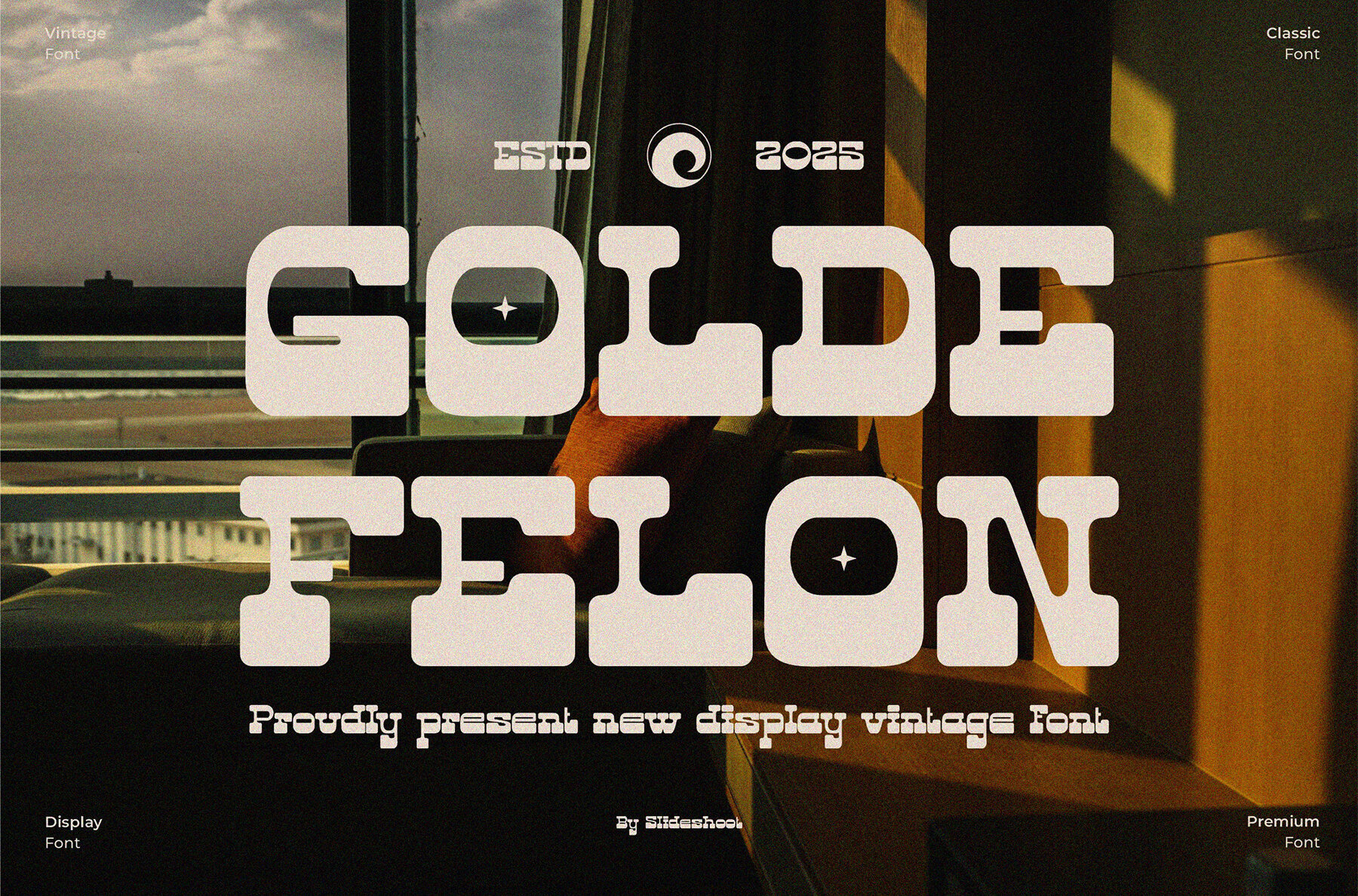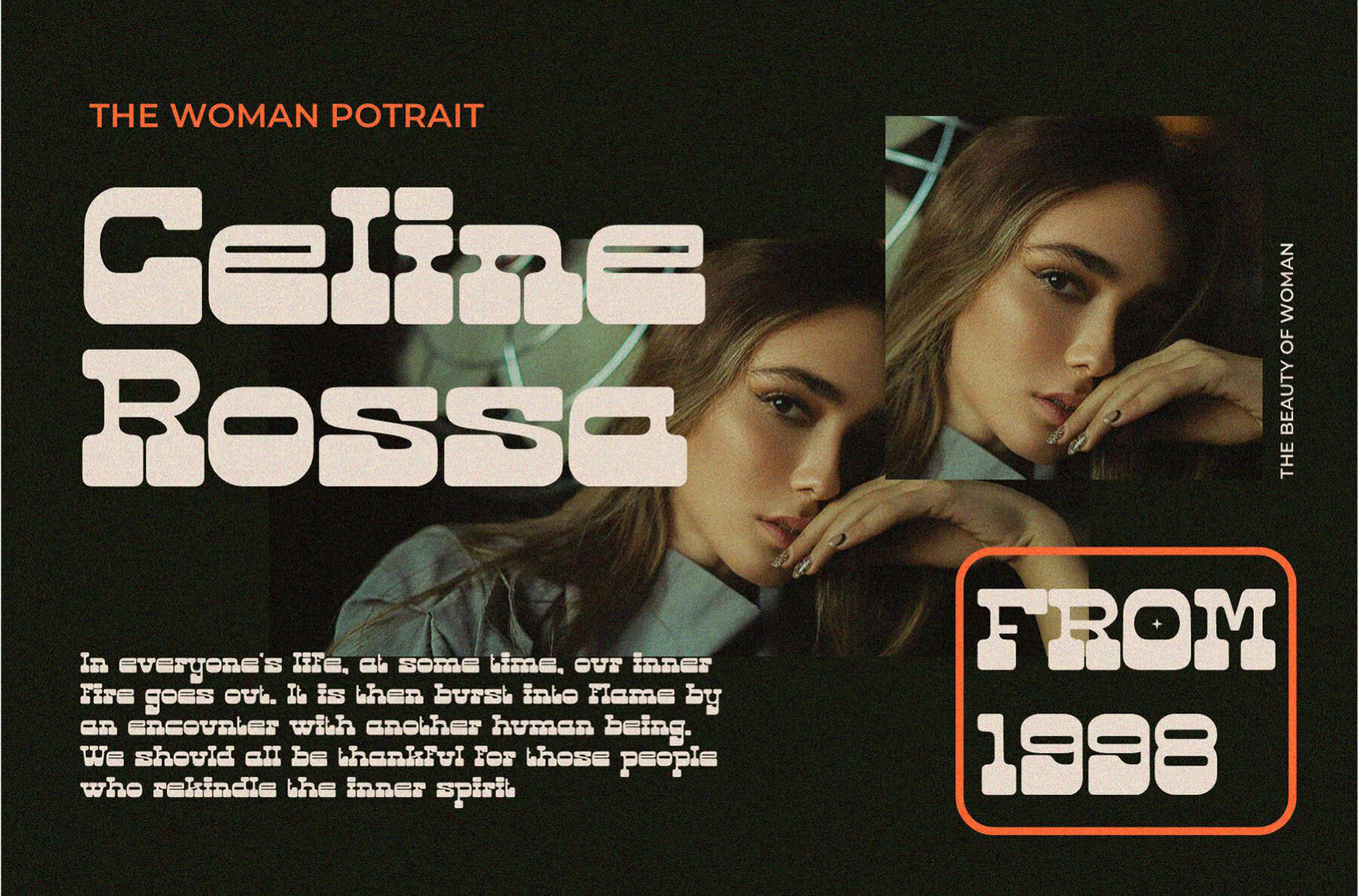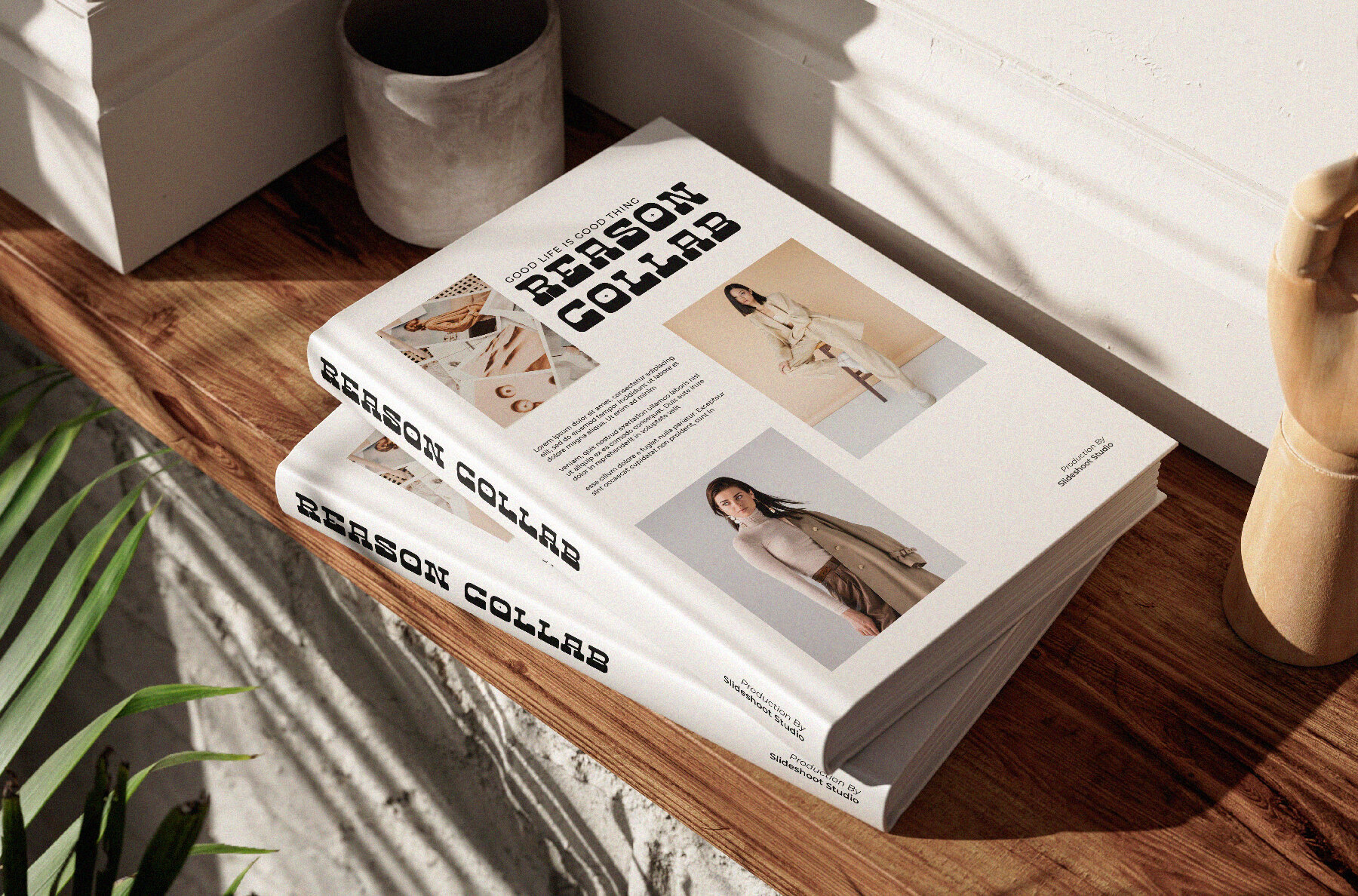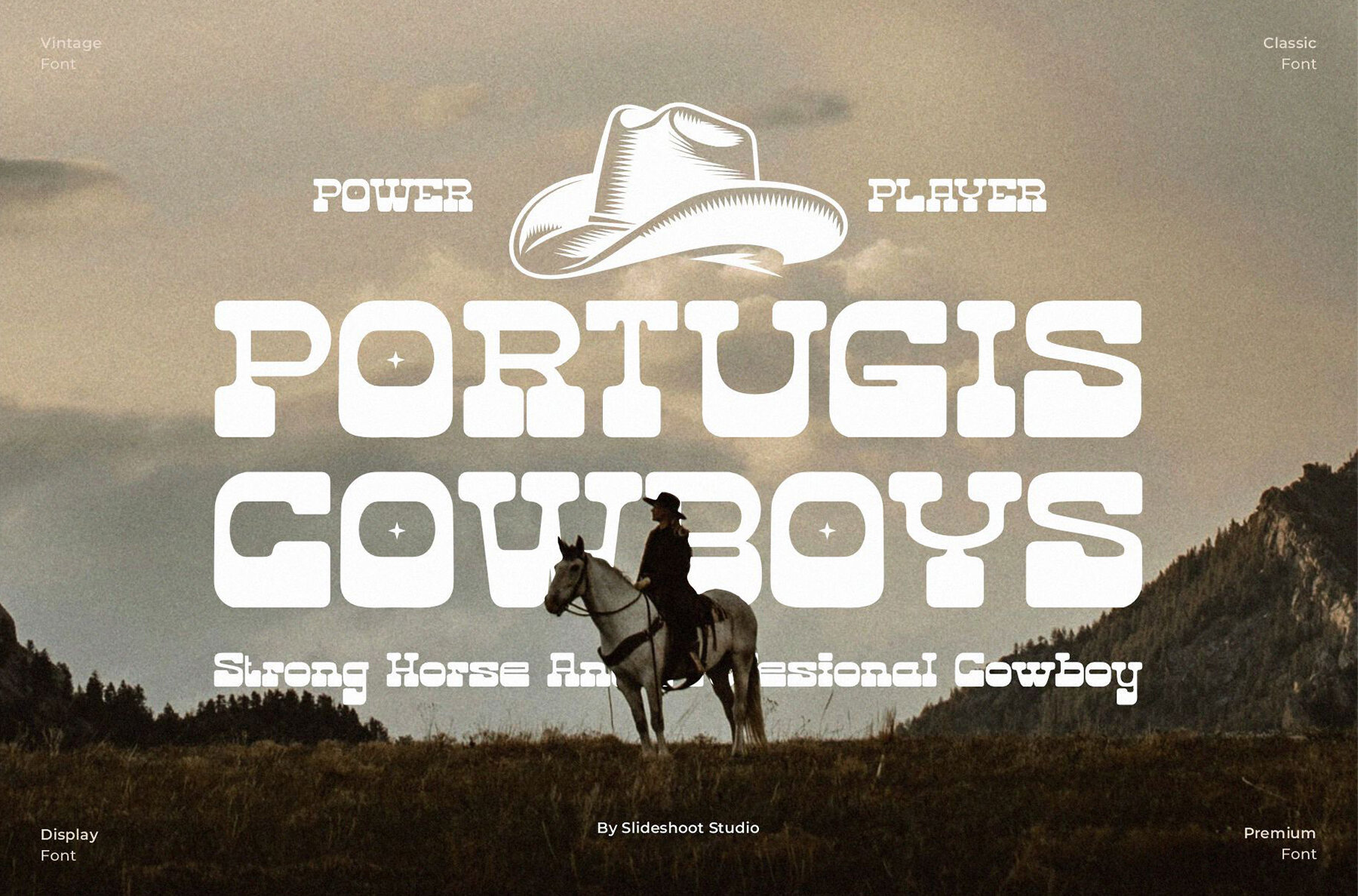
Golde Felon Font
Golde Felon
Golde Felon is a modern and trendy display font featuring a bouncy and unique character inspired by a wood theme. This font is ideally suited for use in invitation card designs, company logos, movie titles, business cards, book titles, brand names, and various other designs.Golde Felon: Unique Display Font with a Wood Theme